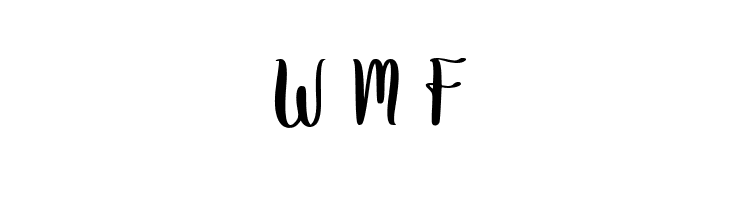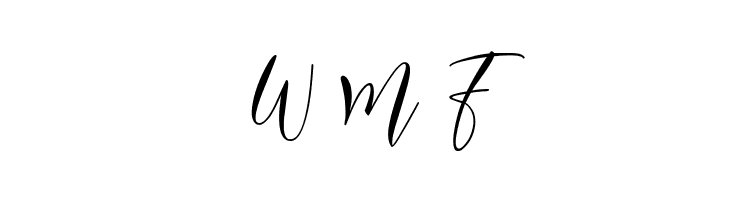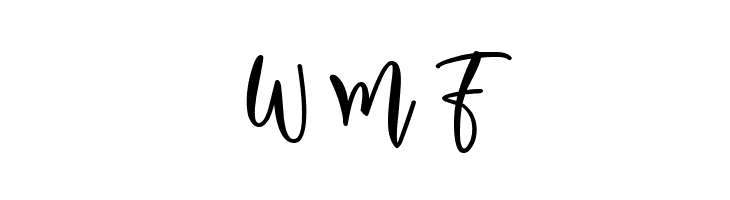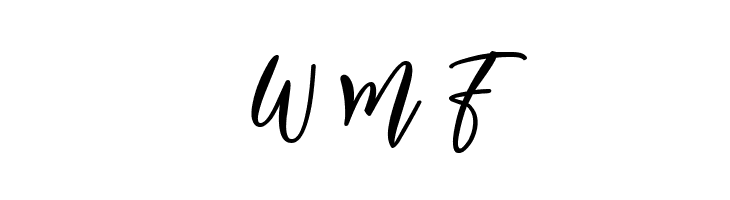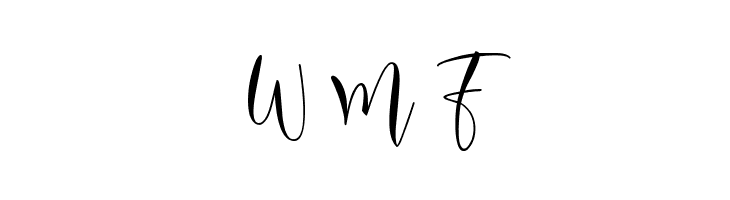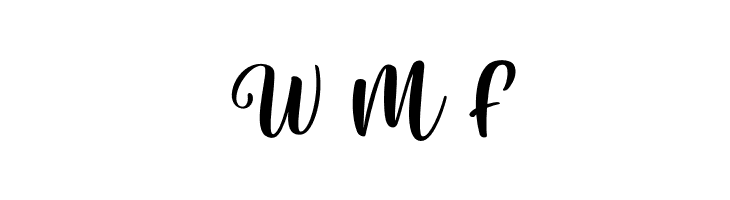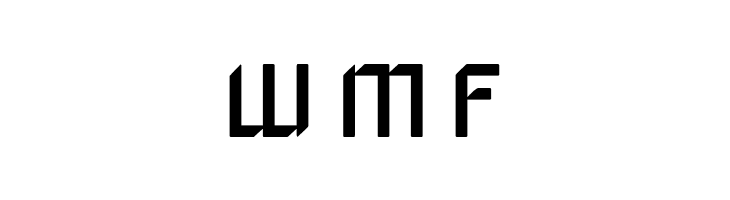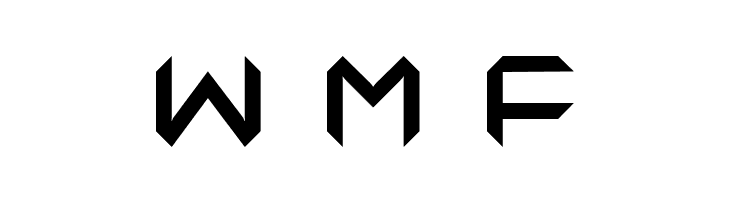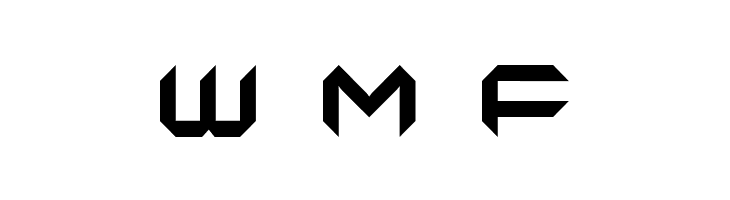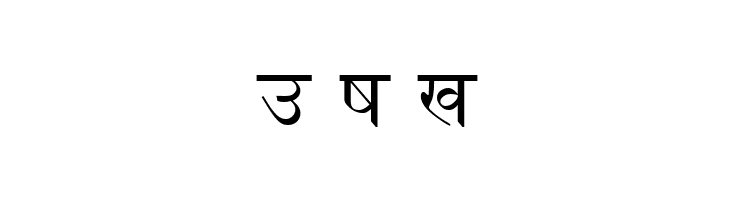
• Mysthiqa
A playful, artistic script font with a handwritten feel and dynamic strokes.
• Mythias
A bold, flowing script font with elegant curves and a cohesive design.
• Naidunia
• Nanda Lovely
An elegant, flowing script font with a sophisticated, handwritten style.
• Nanda Lovely Bold
A bold, flowing script font with expressive, interconnected strokes.
• Nanda Lovely Bold Italic
A bold, italic script font with a lively, handwritten style.
• Nanda Lovely Italic
An elegant, flowing script font with a sophisticated, handwritten style.
• Nano
• Nano low
• narita